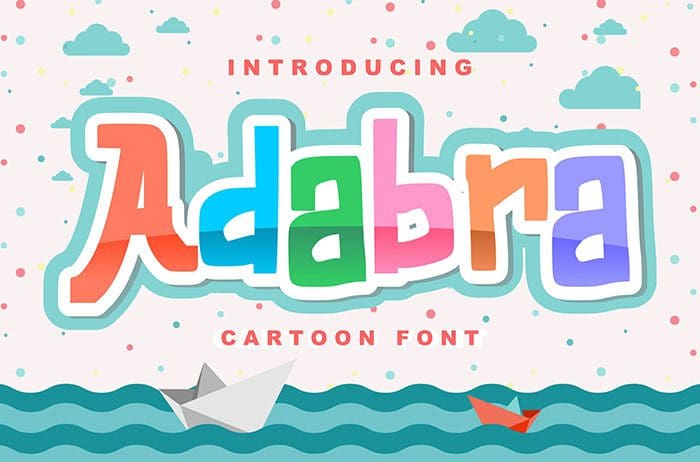
Adabra Display Font
Adabra is a sweet decorative display font that’s a bit kooky and weird. It will add a whimsical twist to your next craft idea. Thanks to Vunira for sharing this font. Take a look at this portfolio for more of his stunning fonts.